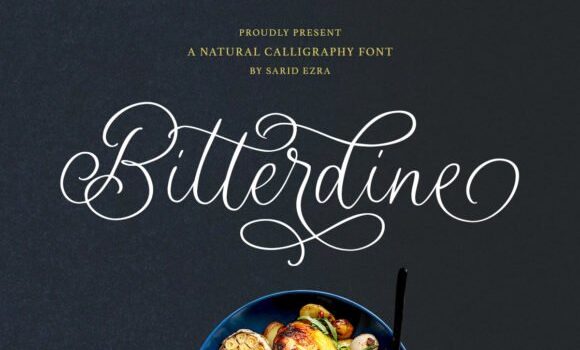
bitterdine
Bitterdine Font – Free Download Introduction to Bitterdine Font Bitterdine Script is a modern and natural calligraphy that contain lowercase, uppercase, symbol, and also supports multi language. 📸 Preview Gallery 6 images 📌 Product Name Bitterdine Font 👤 Author saridezra